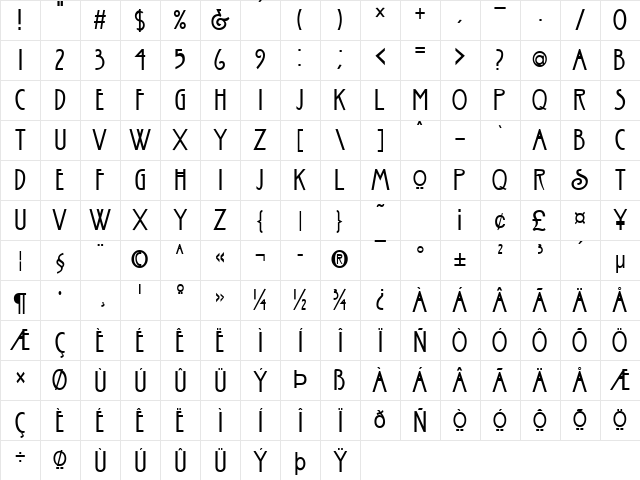
Fanzee-Condensed Normal
Fanzee-Condensed Family
Fanzee-Condensed Normal
Design Context for Fanzee-Condensed
Fanzee-Condensed is a composed and adaptable typeface that performs quietly and consistently across a wide range of design contexts. Its narrow stance lets it pack a punch even in space-constrained designs.